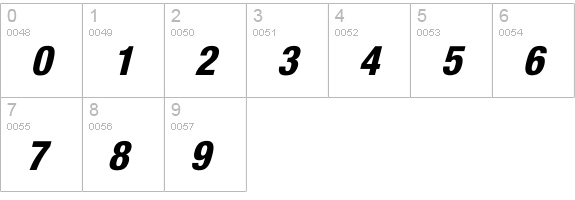
Icolnova ExtraBold is an extra-heavy, attention-grabbing variant in the Icolnova typeface family \xE2\x80\x94 well suited to high-impact headlines, posters, and bold branding.
Introducing Icolnova ExtraBold, a bold and dynamic font that exudes confidence and power. This font is perfect for making a bold statement in any design project. With its strong and commanding presence, Icolnova ExtraBold demands attention and leaves a lasting impression. The thick and pronounced letterforms of Icolnova ExtraBold possess a sense of authority, making it ideal for headlines, posters, logos, and branding materials. Its versatility allows it to be used in both digital and print mediums, ensuring that your message will be conveyed with impact and clarity. What sets Icolnova ExtraBold apart is not only its striking design, but also its availability - it is completely free to download! Thanks to FontsMarket.com, anyone can easily access this remarkable font and elevate their creative projects to new heights. Its accessibility ensures that designers, artists, and enthusiasts alike can enjoy the benefits of this exceptional typeface without any limitations. Whether you are designing for a corporate client, creating eye-catching advertisements, or looking to add an extra touch of boldness to your personal projects, Icolnova ExtraBold is the perfect choice. Its clean lines, sharp edges, and impeccable legibility make it a timeless font that will never go out of style. Don't miss out on this incredible opportunity to enhance your designs with Icolnova ExtraBold – the epitome of strength and elegance. Visit FontsMarket.com today to freely download this font and unlock the limitless possibilities that lie within. Unleash your creativity with Icolnova ExtraBold and make a lasting impression on your audience.